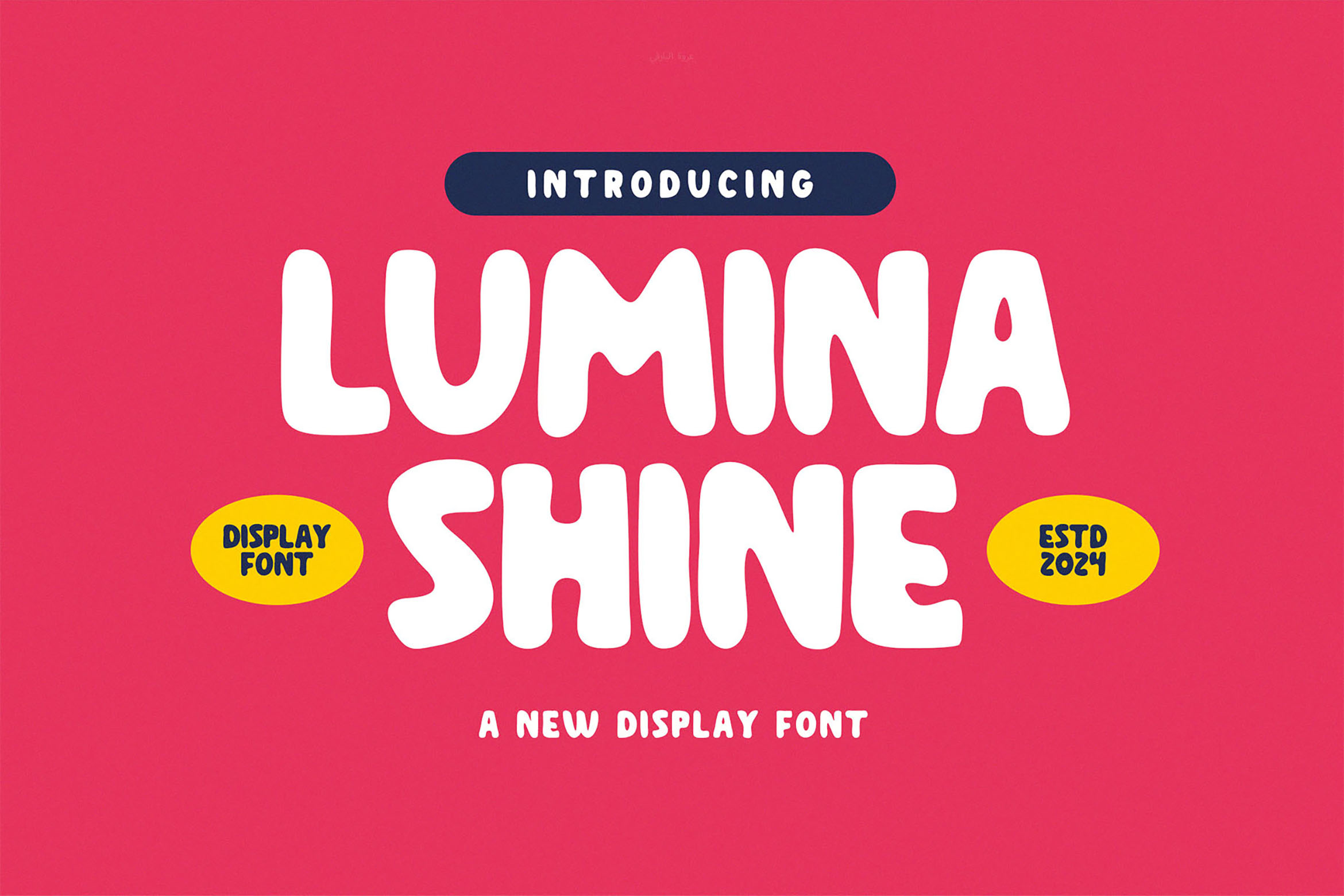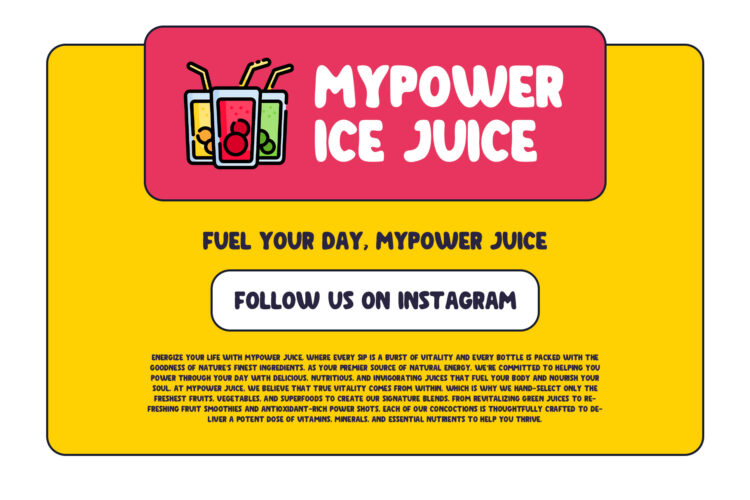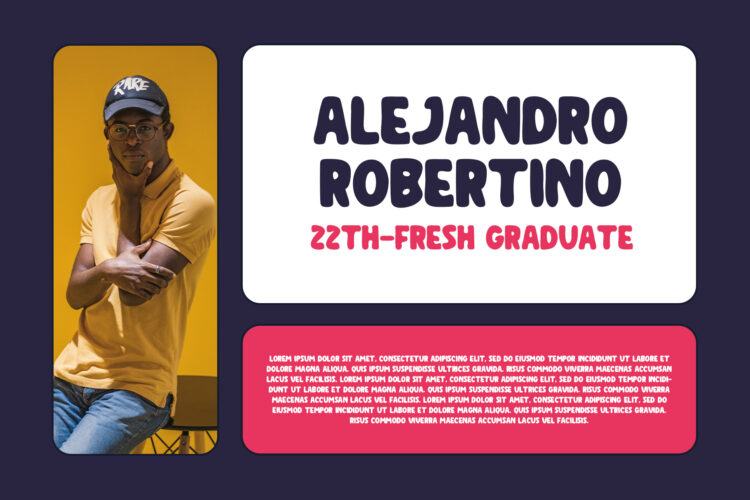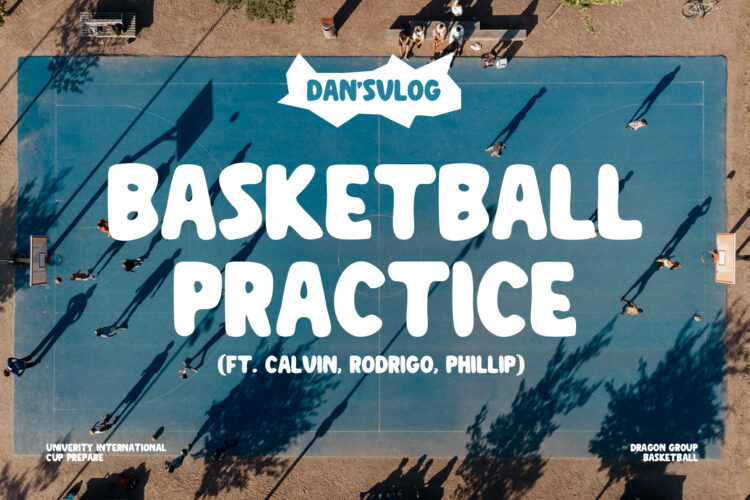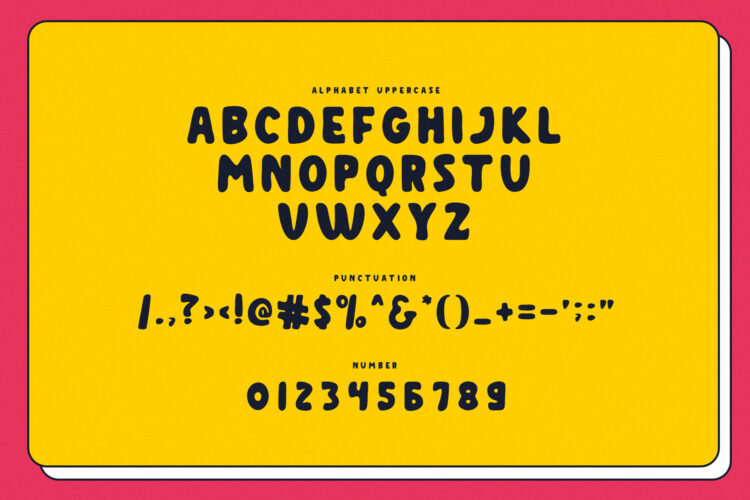
Introducing our new Lumina Shine cute and simple font this is perfect for branding, logos, invitation, magazines, product packaging and more.
Lumina Shine – Cute Display Font